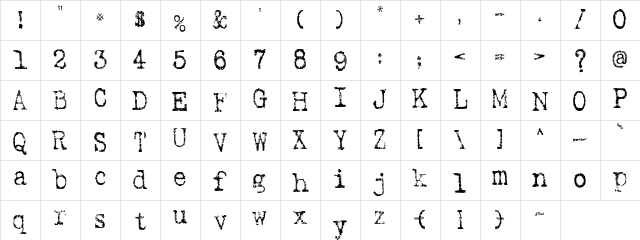
Complete SA Inkspot regular glyph index. Displaying only characters natively supported by SA Inkspot regular font.
SA Inkspot is a composed and adaptable typeface that performs quietly and consistently across a wide range of design contexts.